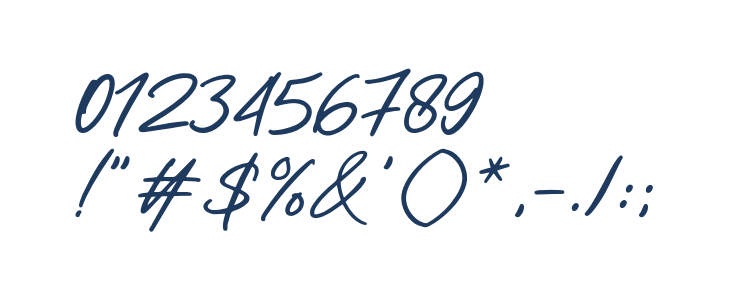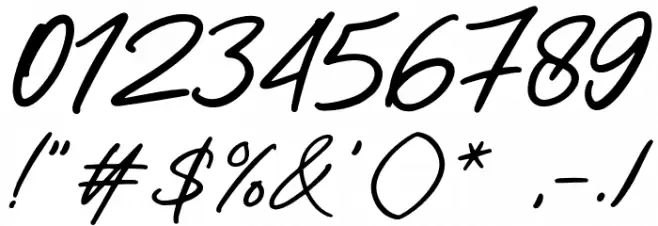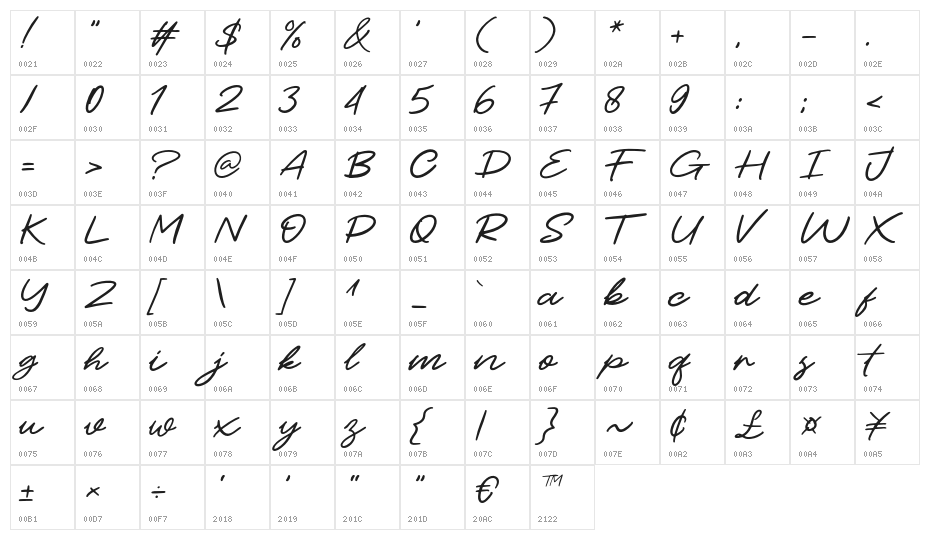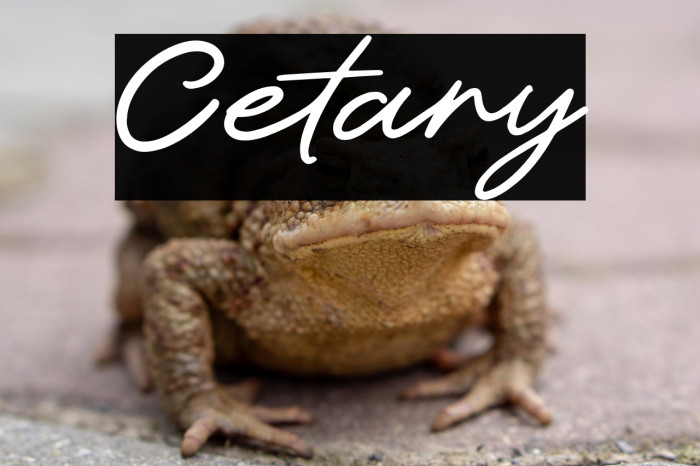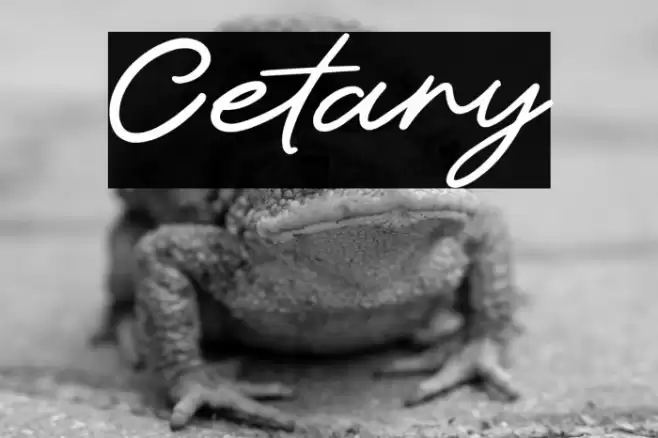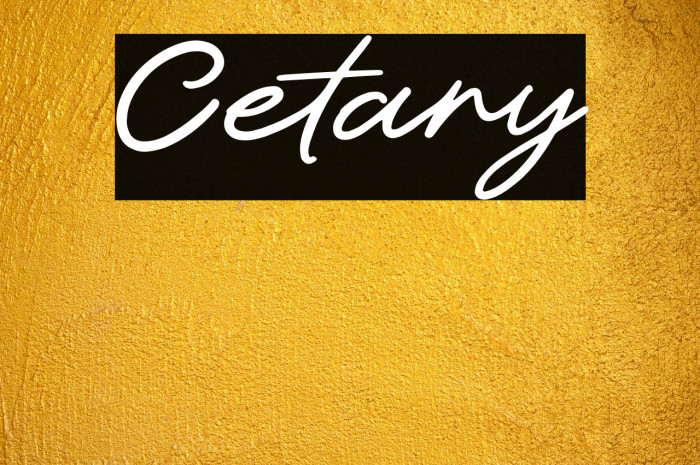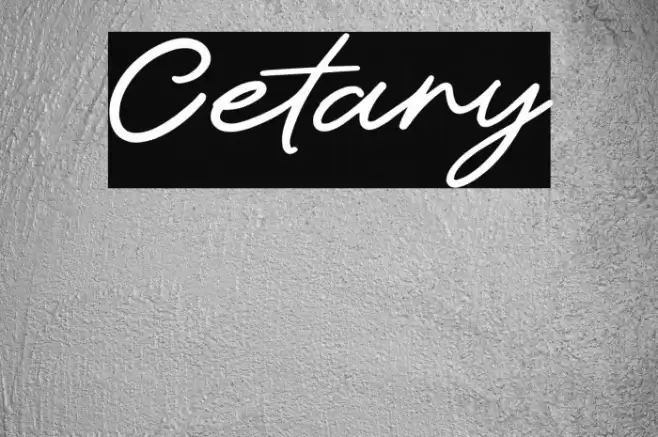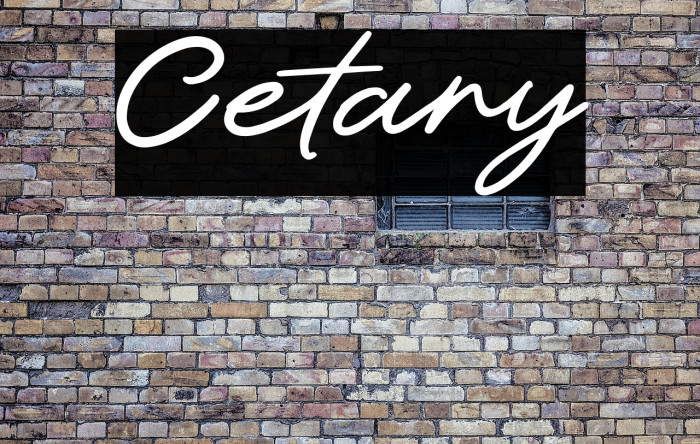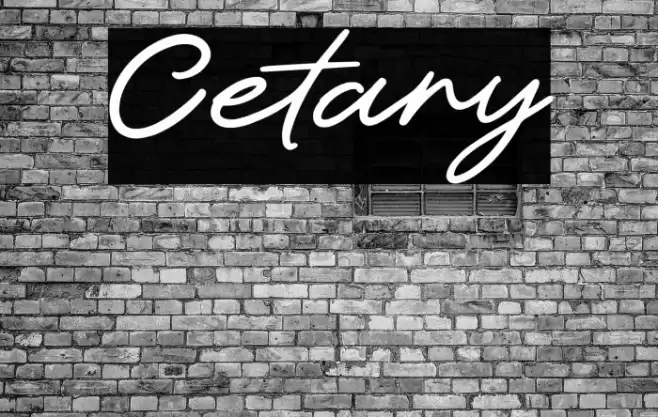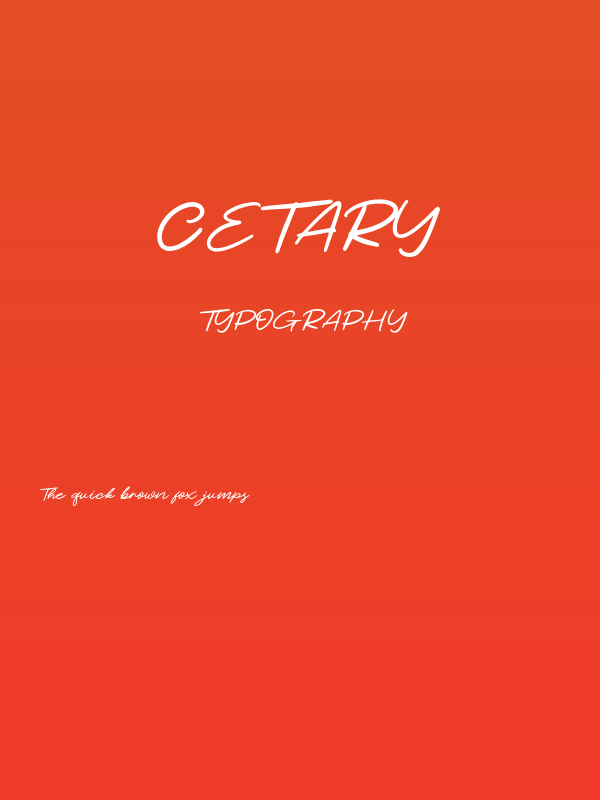
Cetary Font
Cetary Description
This font features a flowing, cursive style that mimics elegant handwriting. The letters are interconnected, creating a seamless and fluid appearance. The uppercase characters maintain a consistent height, while the lowercase letters exhibit a natural slant, enhancing the handwritten feel. The numerals are bold and slightly larger, ensuring readability. Special characters are integrated smoothly, maintaining the overall aesthetic. This font exudes a personal and artistic touch, making it suitable for creative and expressive projects.
| Overall Style | Elegant, Artistic |
| Proposed Projects | Ideal for wedding invitations, personal branding, greeting cards, and artistic projects. |